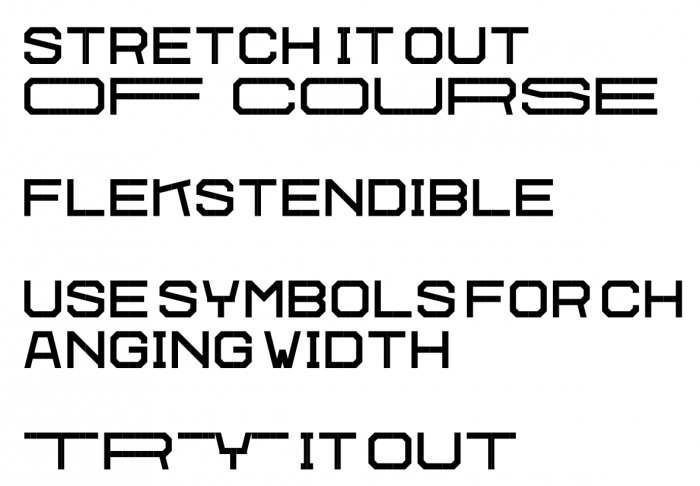
• FLΞKS, but you can use more symbols to change the width of the letter.
Heavily inspired by Stretch by AidenFont.
Try the original one too!
It is very cool! Don't you want to try to make a Cyrillic version?